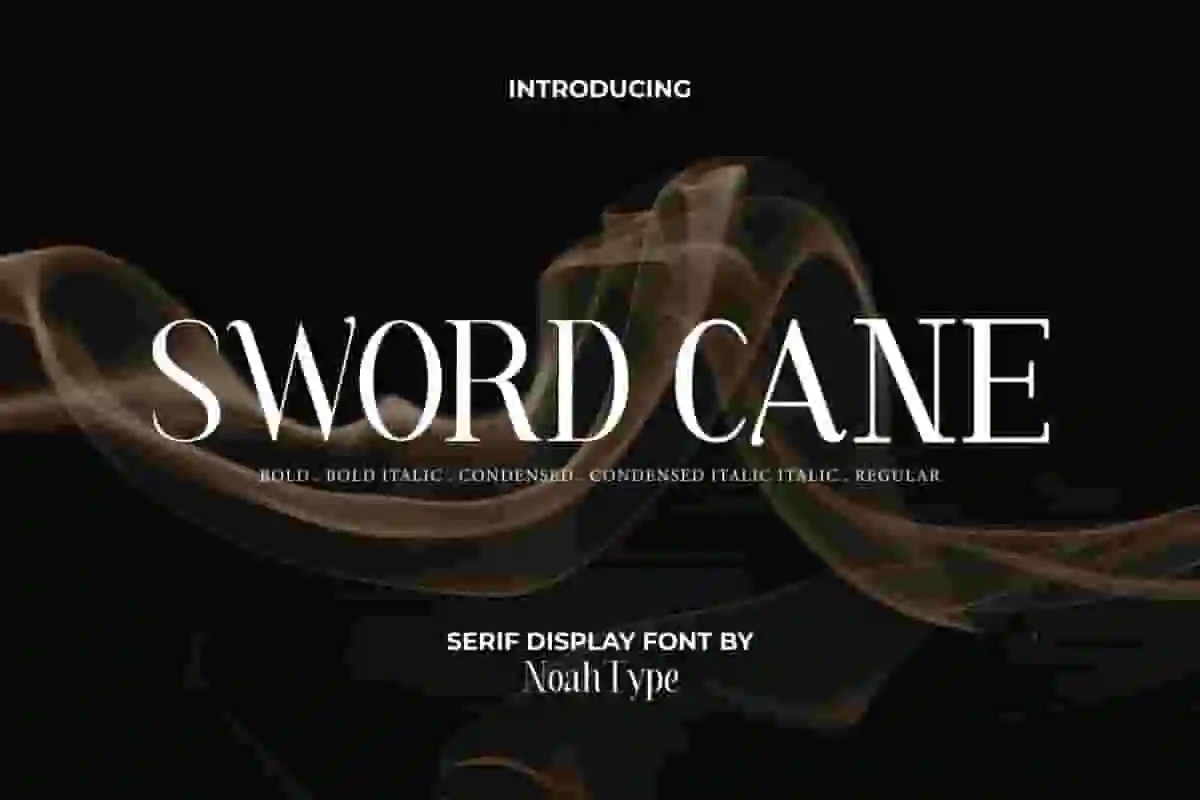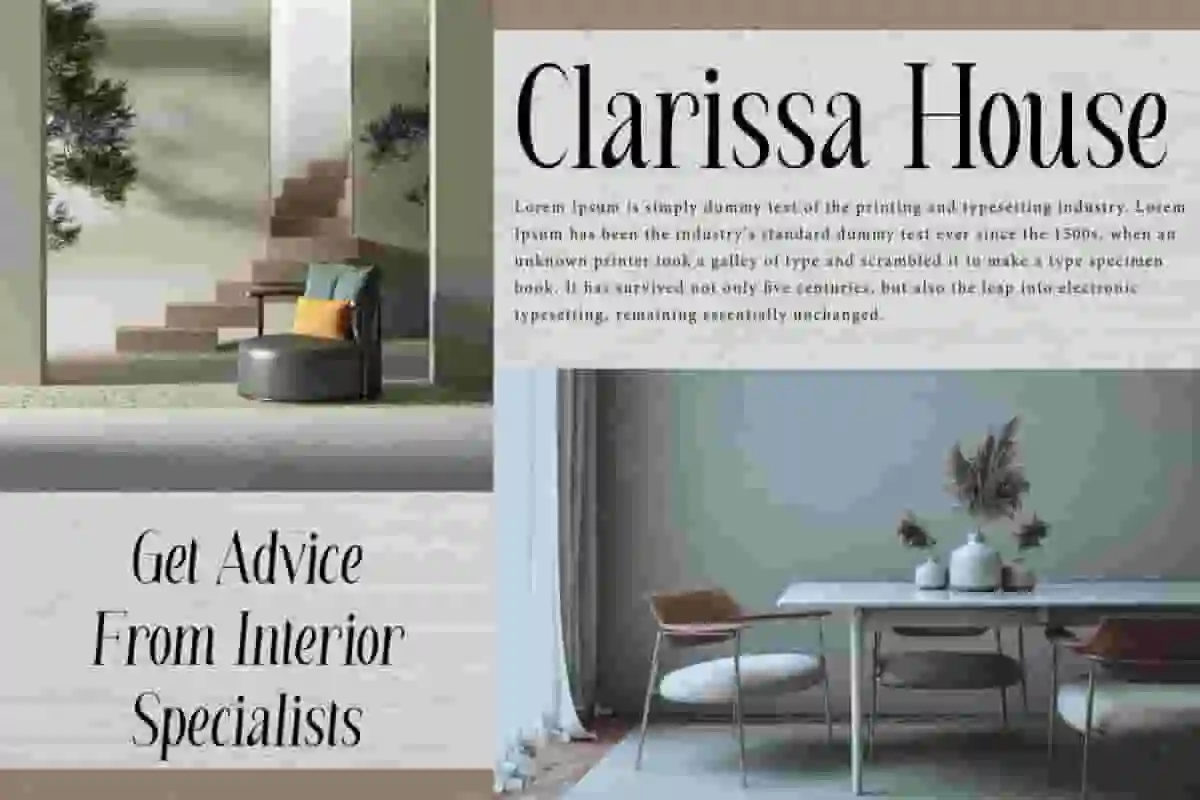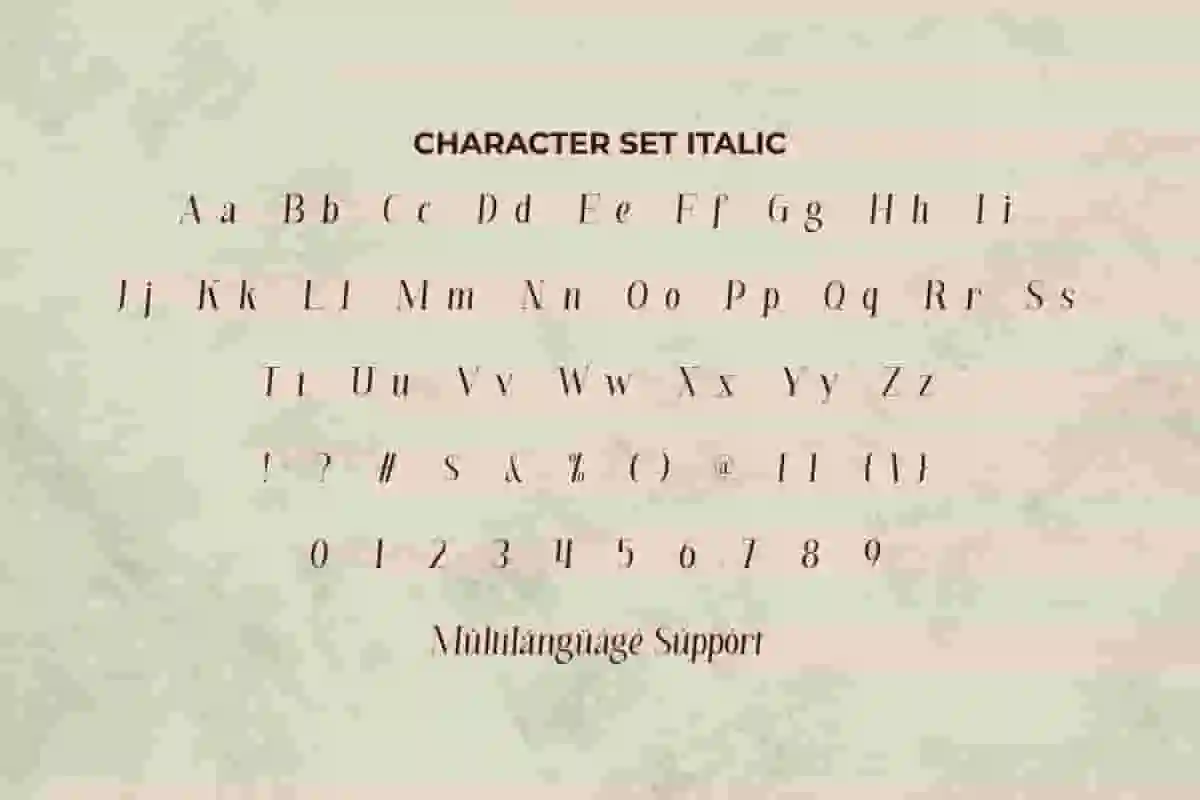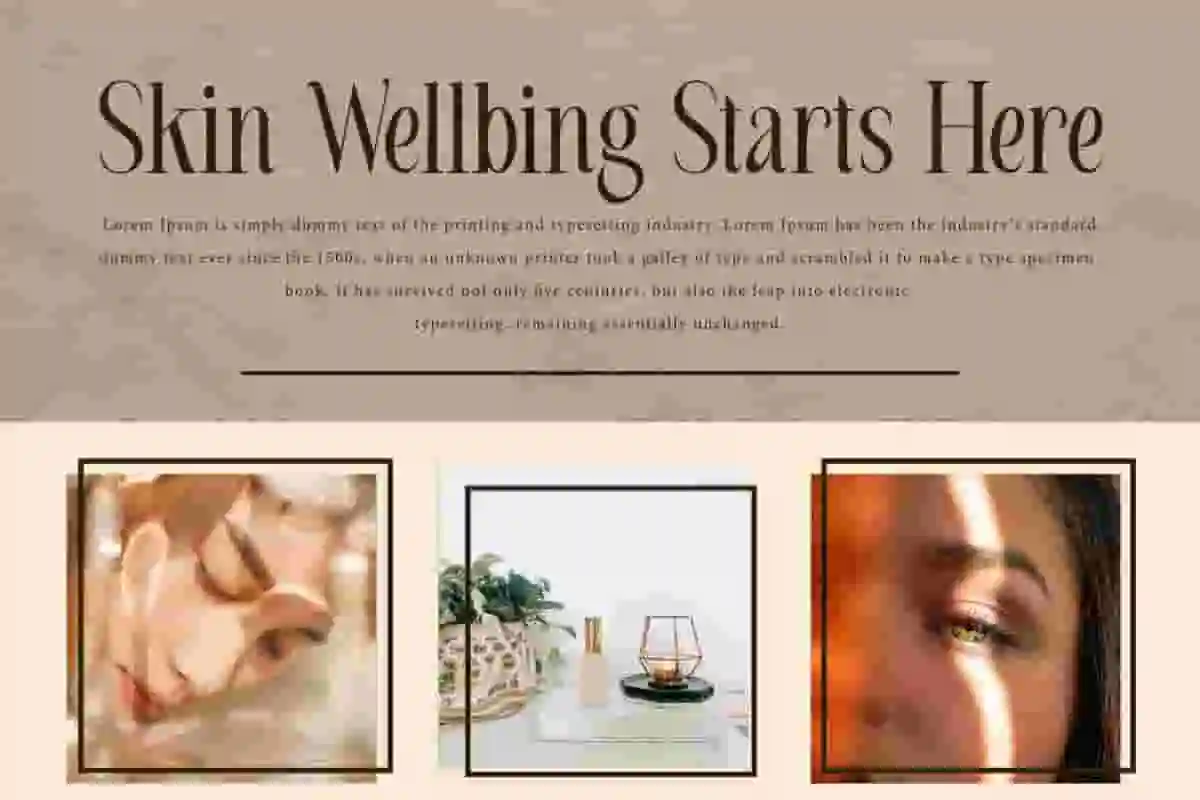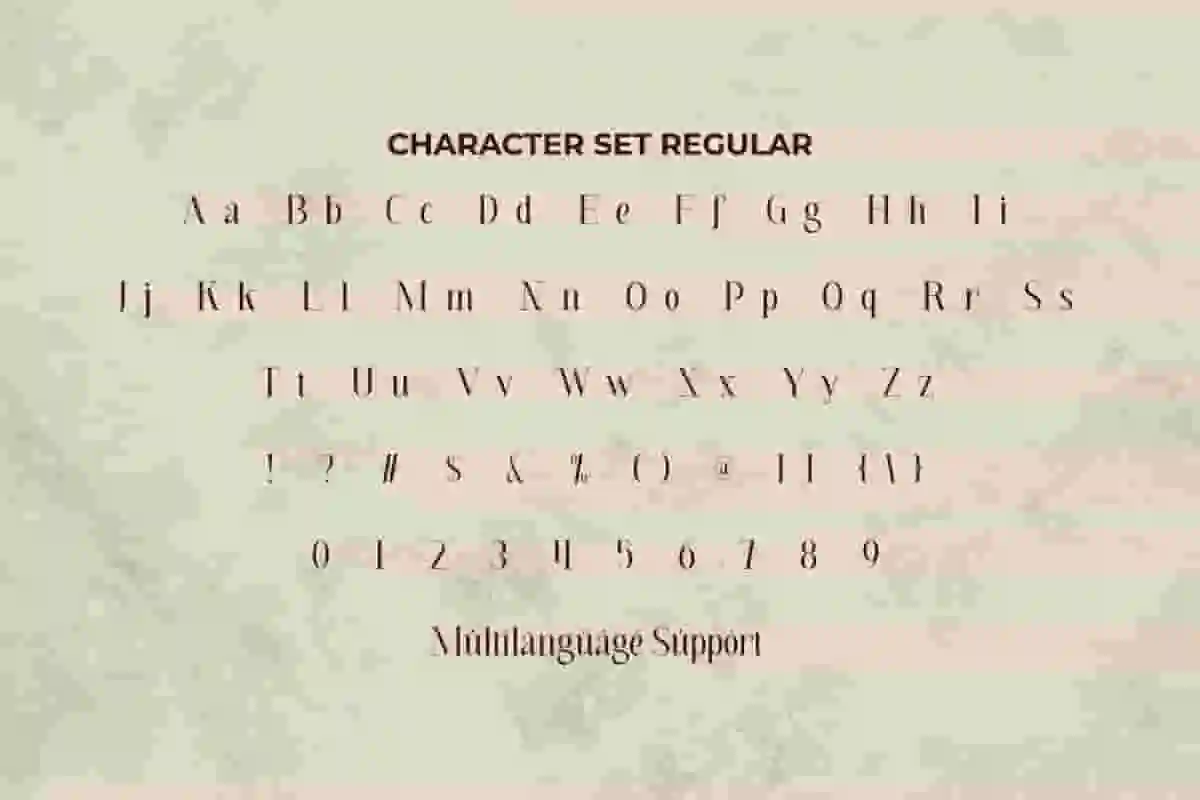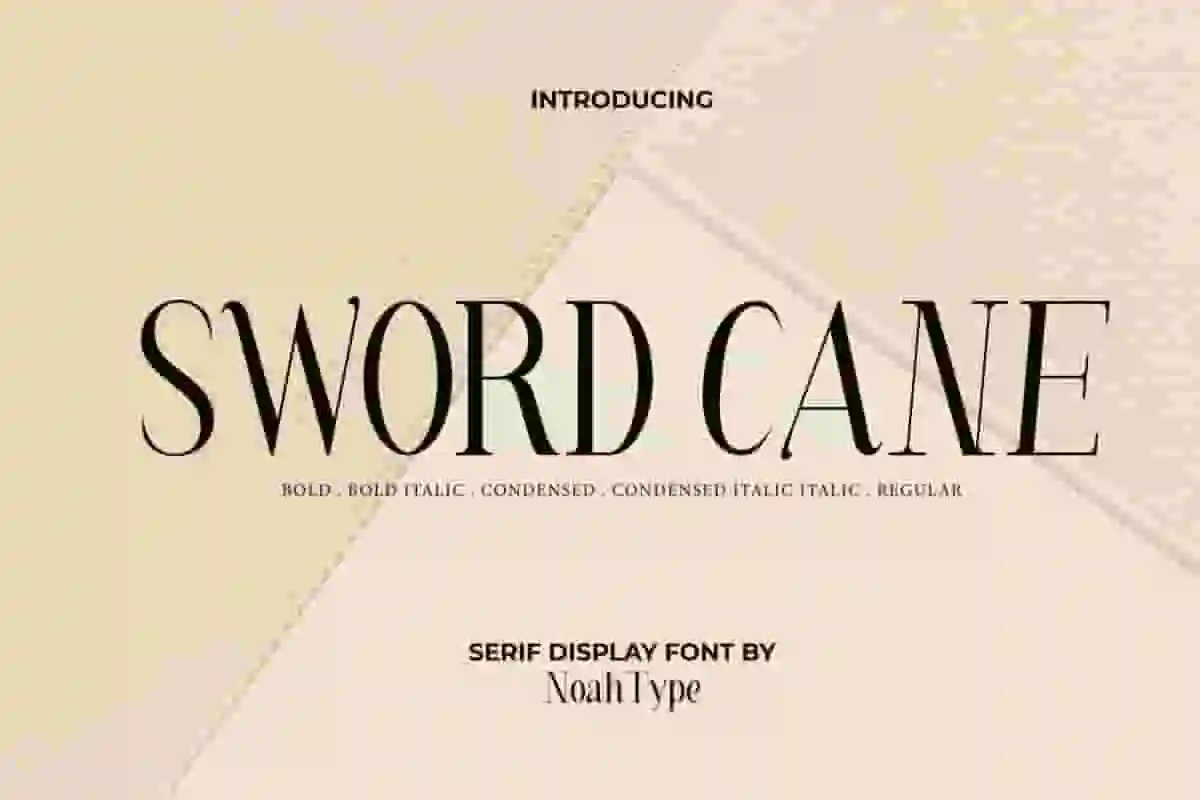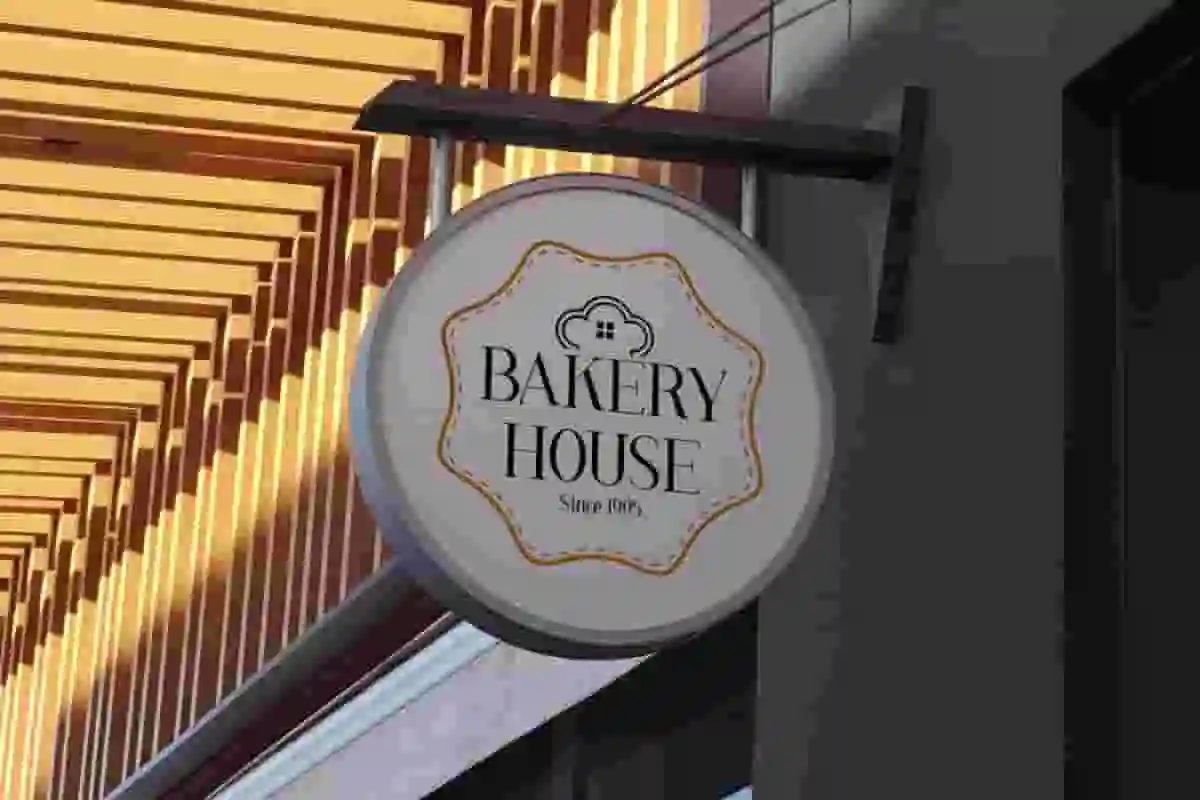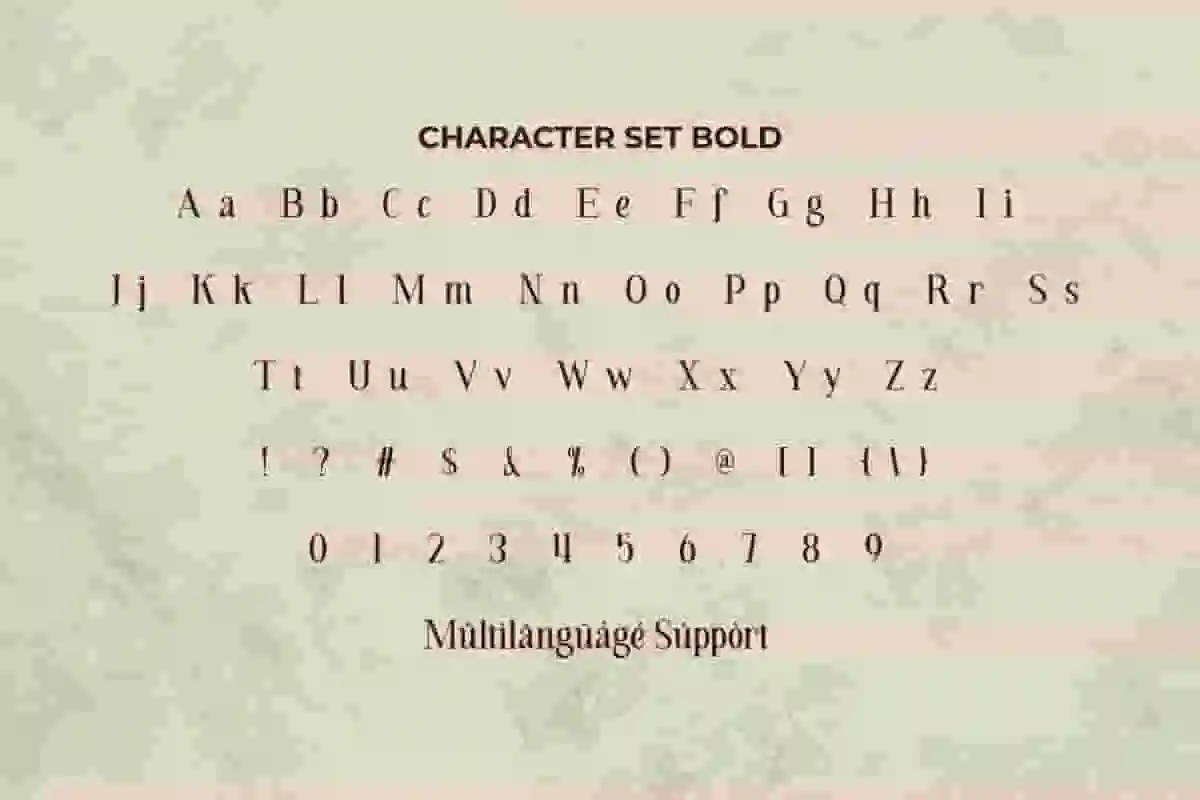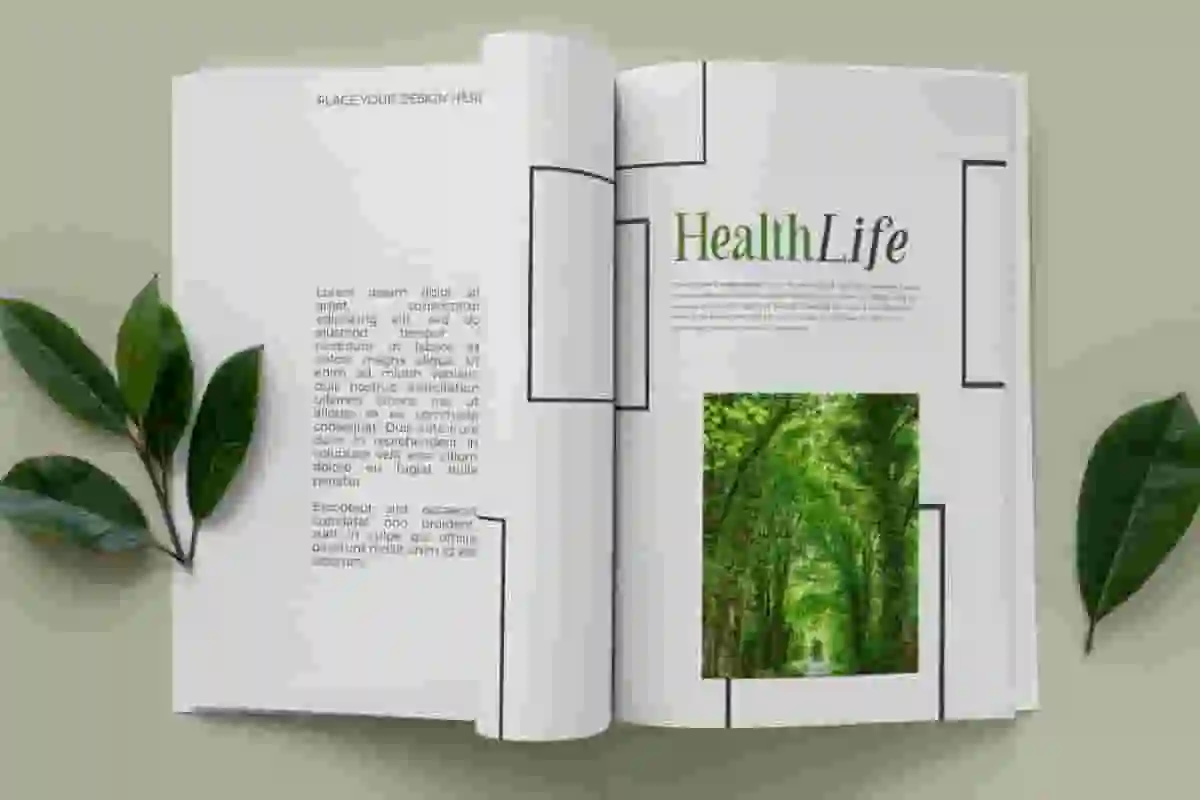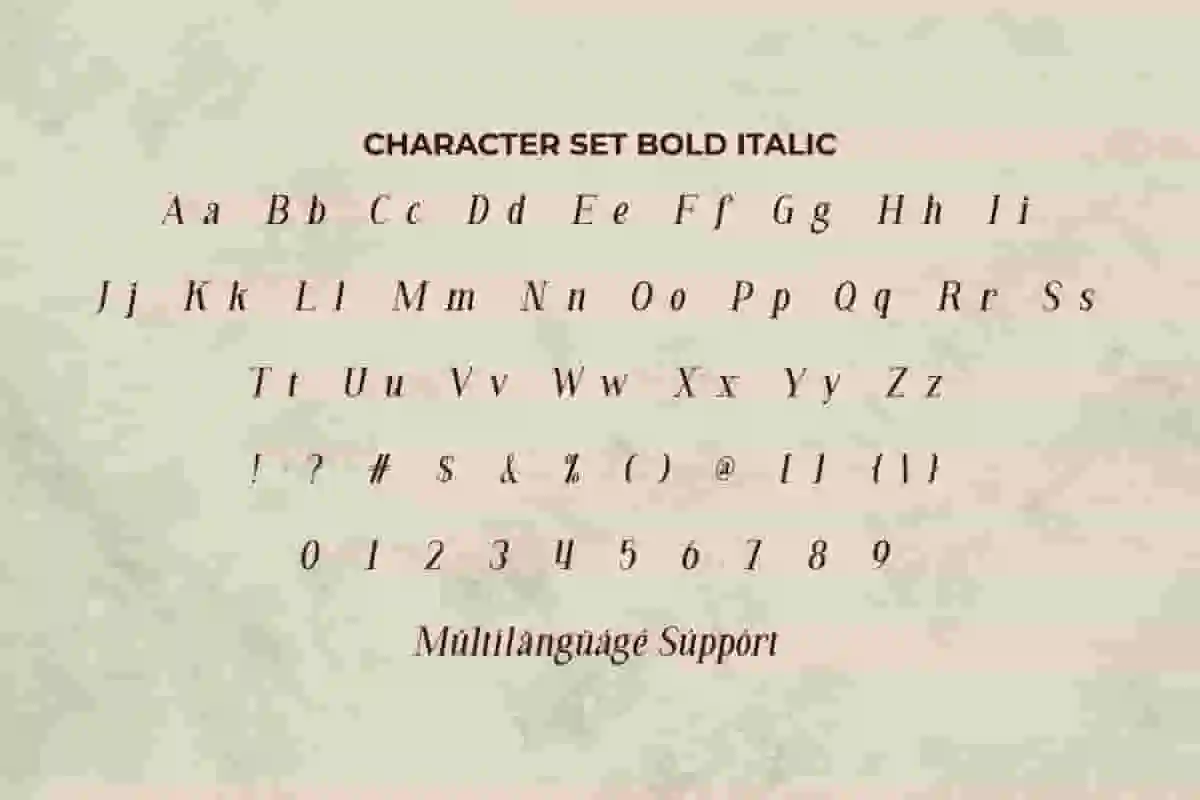
Sword Cane Font is a modern sophisticated serif display font. It would be the best choice for many industries, such as bakery and pastry, beauty product, fashion, florist, furniture, homeware, jewelry, real estate, photography, printing, publishing, restaurant, spa salon, writer, and more!
This font includes uppercase and lowercase letters, numerals, punctuation, and multilingual support, ensuring versatility across various design needs. With its strong structure and timeless charm, Sword Cane Serif Display Font adapts seamlessly to both digital and print formats.
Sword Cane Font include full set of Uppercase and Lowercase Basic Characters, Numerals and Punctuation. This font would be perfect for projects that require an elegant feel, including : billboard, brand logo, brochure, interior design, labels, magazine catalog, product packaging, quotes, signage, etc.
Bring strength, elegance, and sophistication to your creative projects with Sword Cane Serif Display Font. Inspired by the graceful yet powerful form of a sword cane, this font blends classic serif elegance with modern display impact.
Whether you’re designing logos, magazine covers, posters, invitations, or packaging, this serif display font ensures your text stands out with authority and style. Its refined letterforms exude confidence, making it the perfect choice for premium products, fashion labels, and professional presentations.